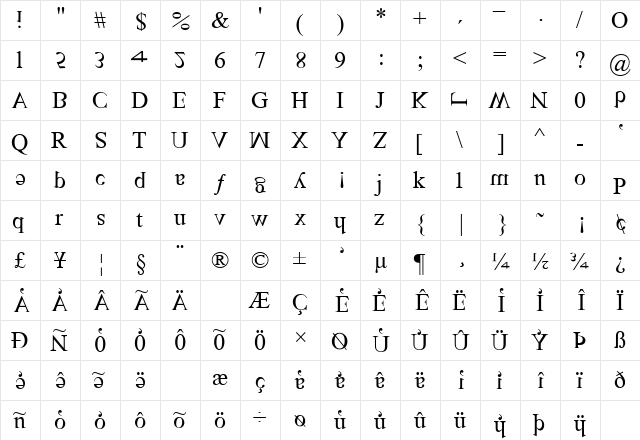
Times Screwed Roman Regular
Design Context for Times Screwed Roman Typeface
Times Screwed Roman takes a measured approach to typography — its balanced proportions and neutral character make it a reliable workhorse for both digital and print work.